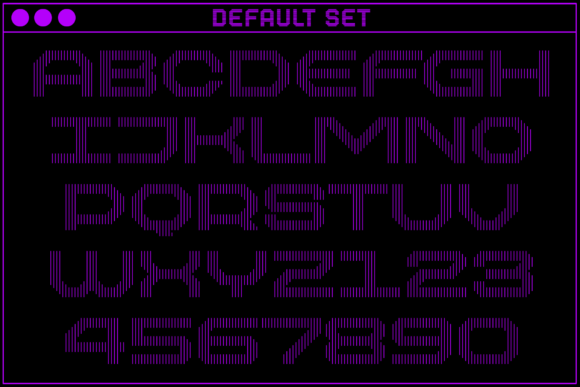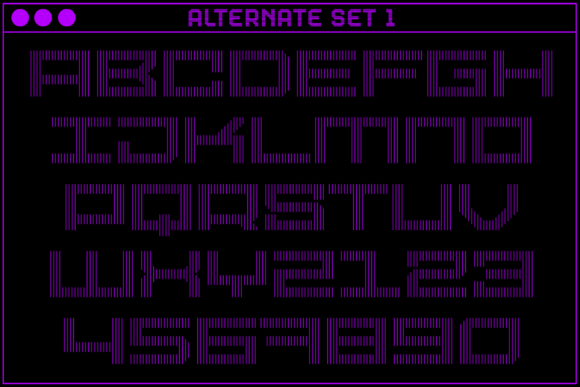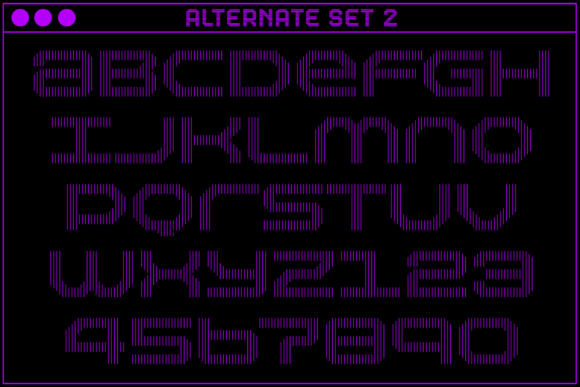
Introduction to MultiType Lines Ample 3 Font
Have you ever found yourself stuck in a creative rut, searching for that perfect design element to elevate your project from good to great? I know I have. And then, like a breath of fresh air, I stumbled upon the MultiType Lines Ample 3 Font – a game-changing, pixelated decorative font that adds a distorted and trendy touch to any design.
This unique font is a treasure trove of creative possibilities, waiting to be unleashed in your next design project. With its cool, uniquely shaped glyphs and PUA encoding, you’ll have access to a world of high-quality design resources at your fingertips. Whether you’re working on a graphic design project, a logo, or even a social media graphic, MultiType Lines Ample 3 Font is the perfect design resource to take your work to the next level.
- High-quality design resource ideal for creative projects, offering a professional touch to any visual content.
- Includes a range of lines and shapes, making it a versatile design resource for various creative projects.
Honest Review: MultiType Lines Ample 3 Font
I recently had the chance to work with the MultiType Lines Ample 3 Font, and I must say, it was a pleasant experience. This font is a great addition to any designer’s toolkit, offering a high-quality design resource for creative projects.
- ✨ High-quality lines and strokes, perfect for creating detailed designs.
- ✨ Smooth, even texture that works well with both light and dark backgrounds.
- ✨ A wide range of line weights, making it easy to customize the font to suit your design needs.
- ⚠️ Limited language support, which may be a concern for designers working on international projects.
- ⚠️ Some users may find the font to be a bit too minimalist, lacking in personality or flair.
Overall, I was impressed with the MultiType Lines Ample 3 Font. While it may not be perfect, it’s a solid choice for designers looking for a high-quality design resource for their creative projects.
Common Use Cases for MultiType Lines Ample 3 Font
The MultiType Lines Ample 3 Font is ideal for various design projects, including logos, posters, business cards, and social media graphics. Its high quality and versatility make it a valuable design resource for creatives.